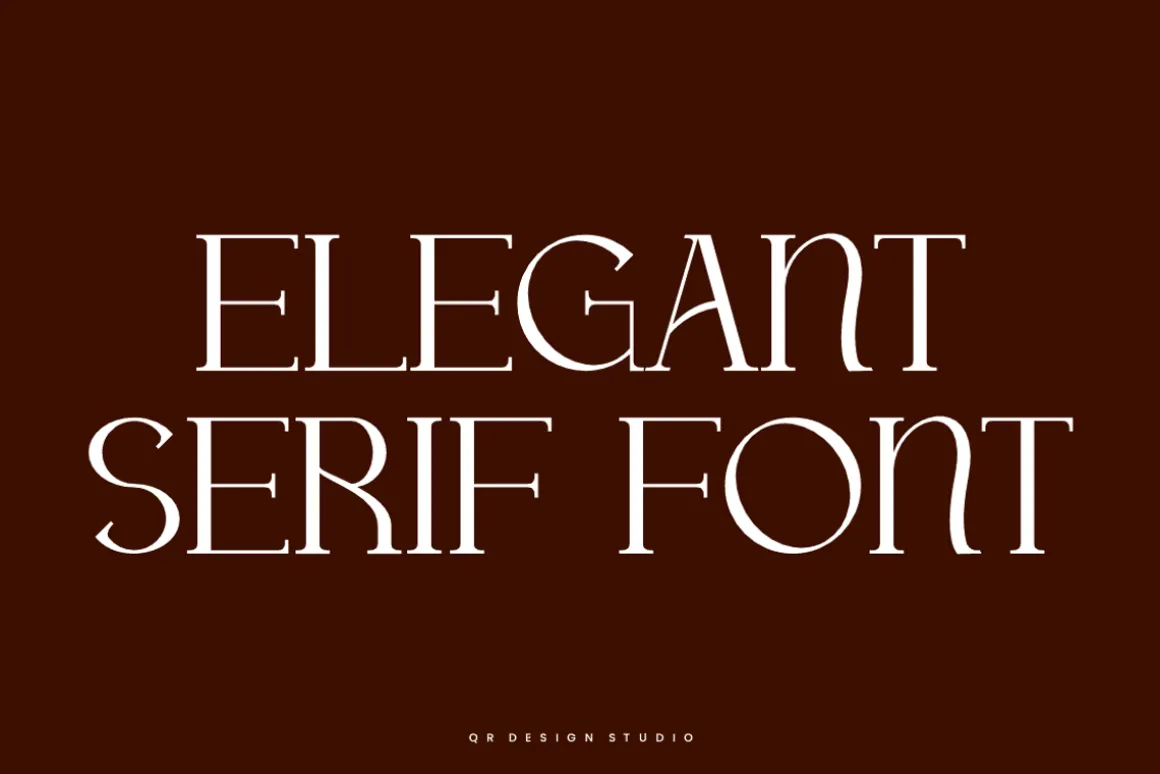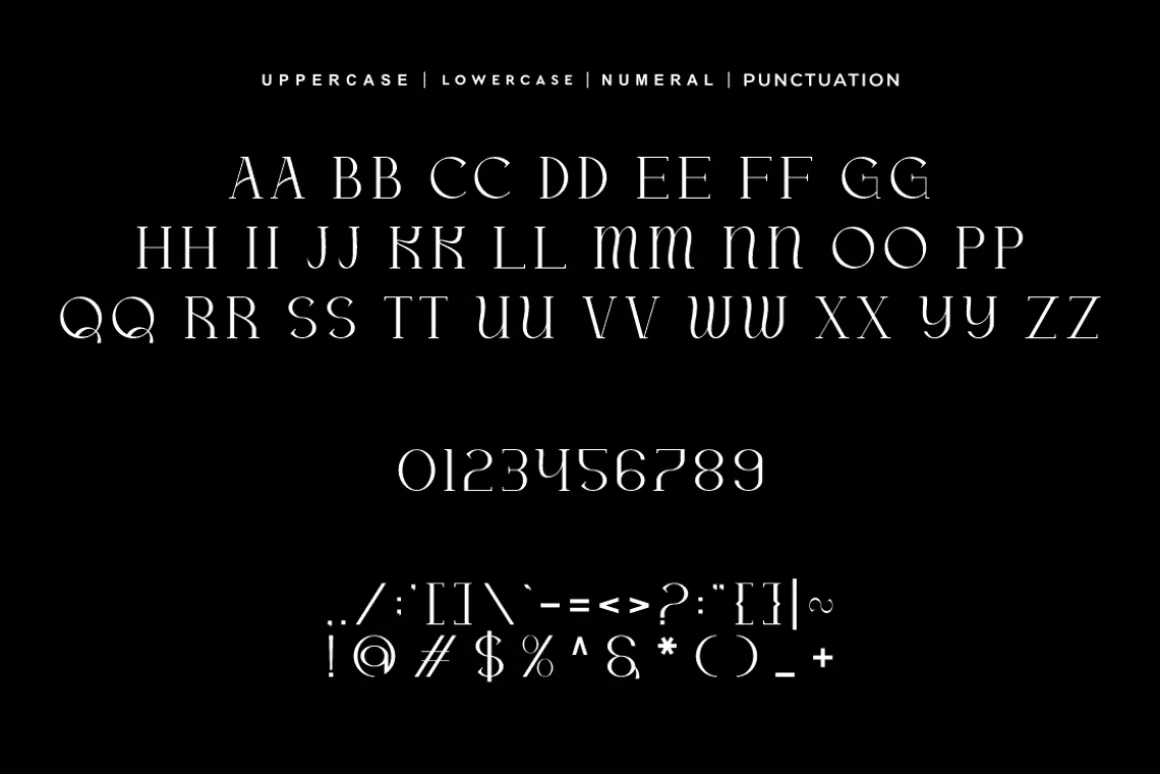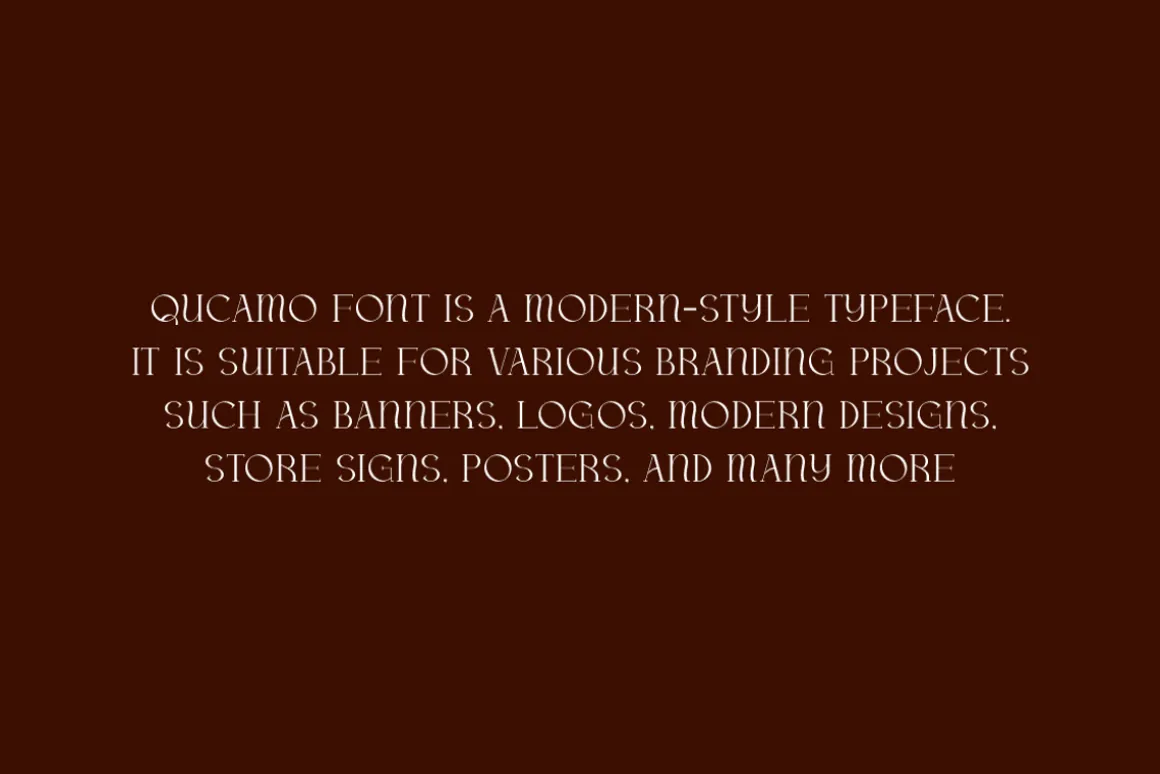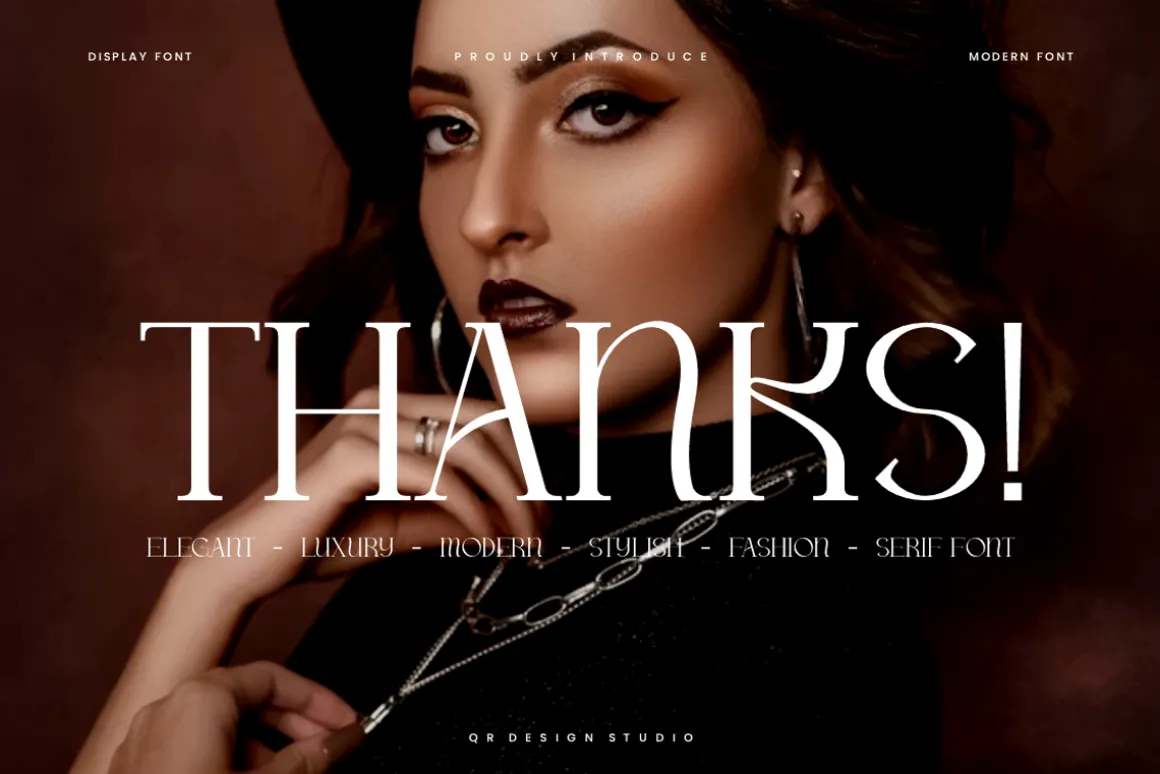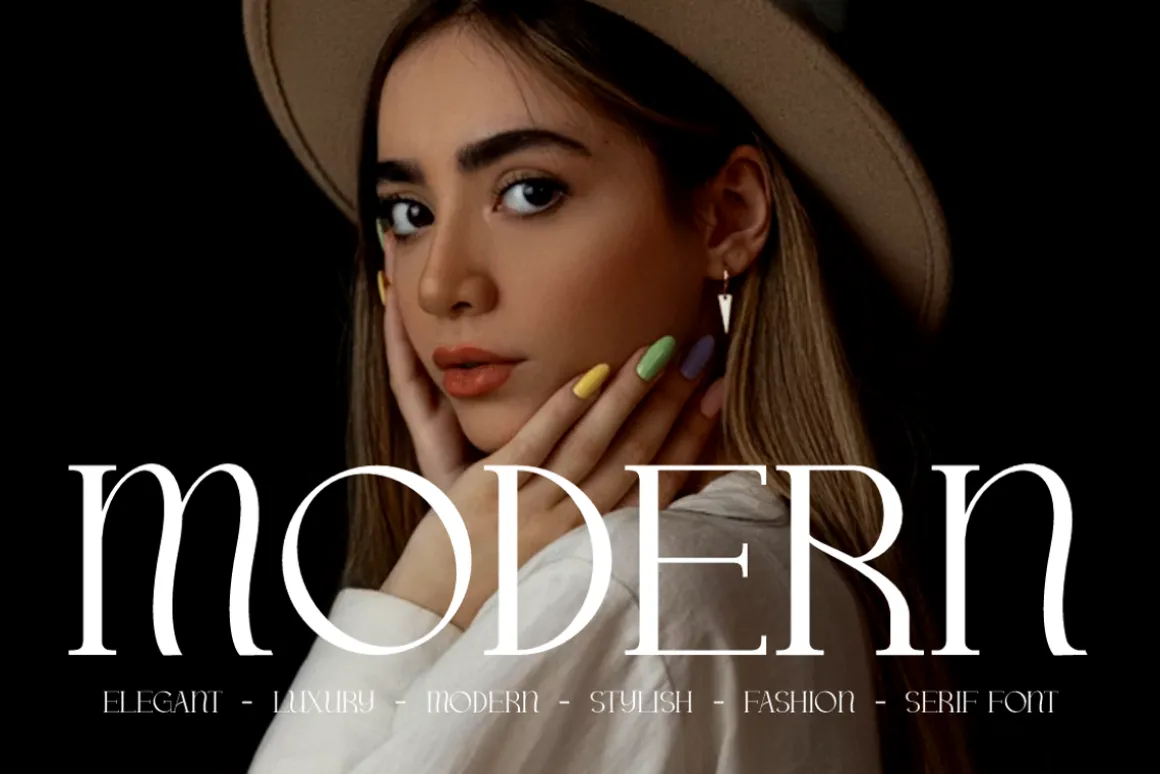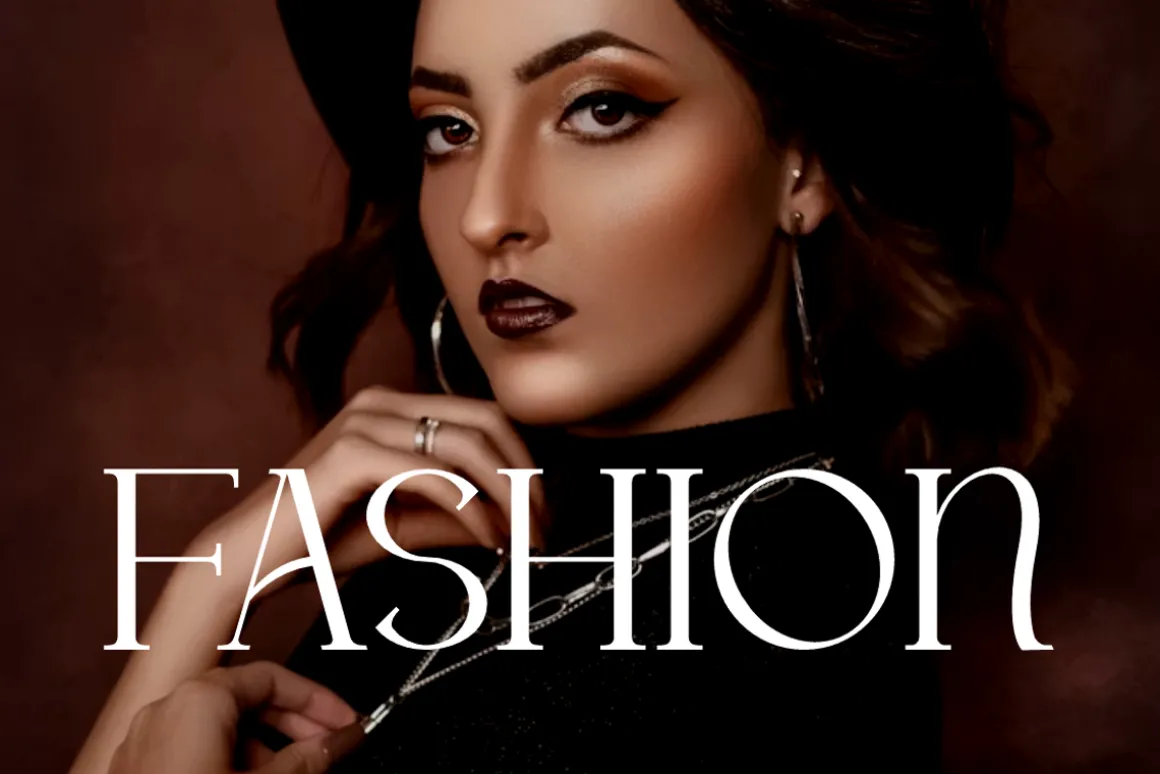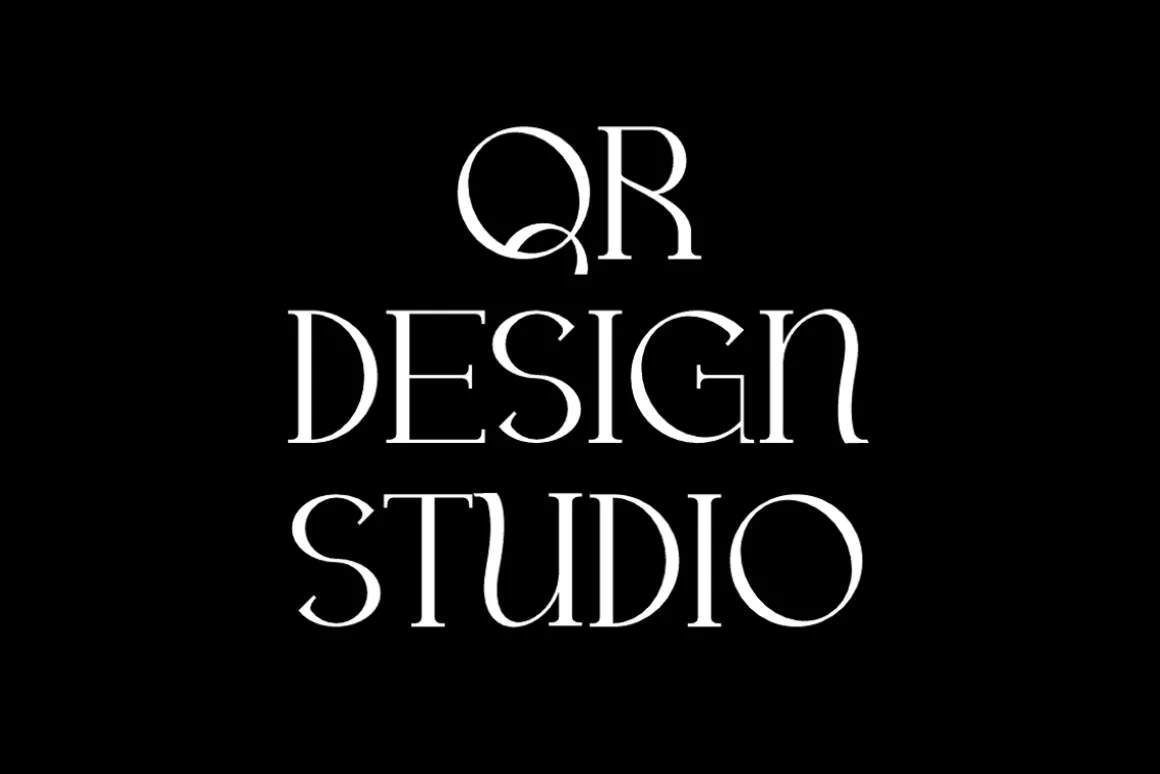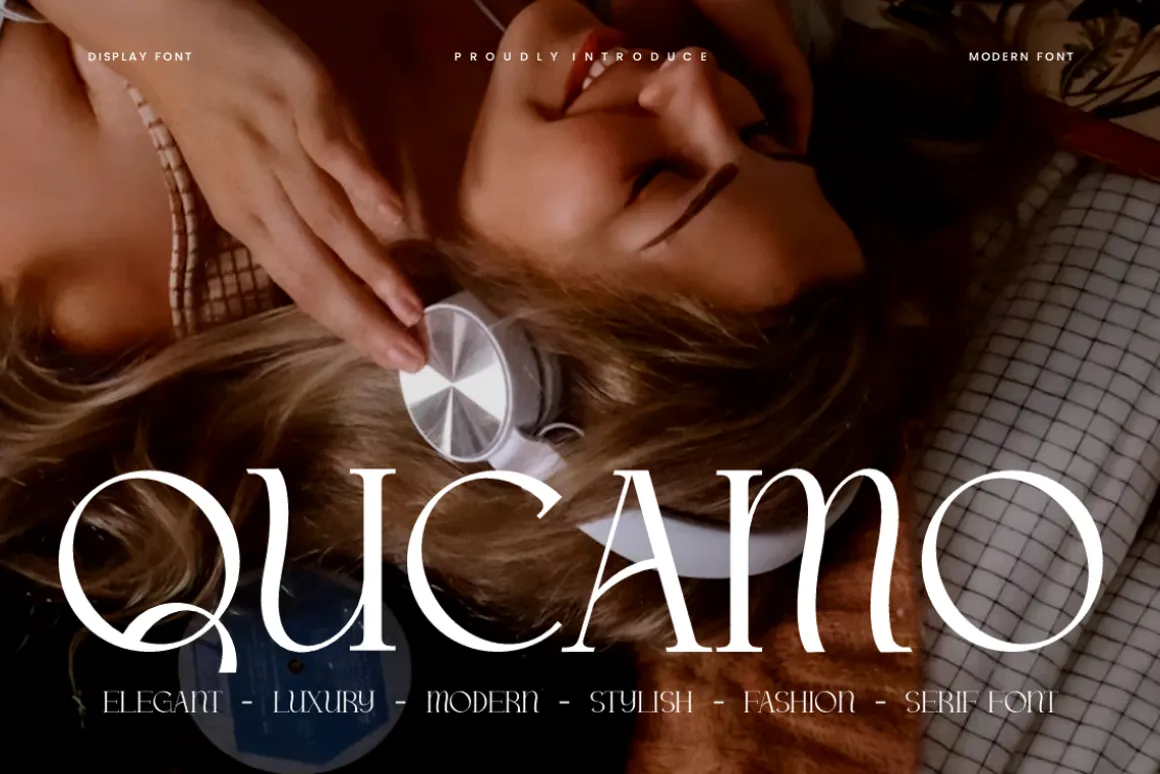
Qucamo Font is a serif and authentic display typeface.
It’s perfect for various branding projects such as logos, modern designs,
and more. This font stands out beautifully in a wide range of contexts.